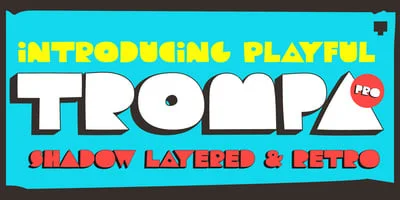
TOMO Trompa Pro Font
TOMO Trompa Pro Font is perfect for professional music conservatories, classical orchestra branding, brass instrument retailers, symphony hall signage, music education institutions, professional musician portfolios, and prestigious musical performance venues. This distinguished typeface embodies musical excellence and professional artistry, bringing symphonic sophistication and classical music heritage to any design project celebrating musical mastery and orchestral performance.
What makes TOMO Trompa Pro Font exciting is its harmonious combination of classical music tradition and contemporary professional design that perfectly captures the precision and artistry of orchestral performance. The font features structured letterforms with musical proportions and brass instrument-inspired details that evoke both the technical mastery of professional musicians and the elegant sophistication of concert halls. Its authoritative character appeals to serious music audiences while maintaining excellent readability for both sheet music applications and classical music marketing materials.
The TOMO Trompa Pro Font family includes comprehensive weight variations with matching italic styles and musical ornamental elements. The character set features musical ligatures, brass symbols, orchestral alternates, and classical decorative accents that enhance the font's professional appeal. Advanced OpenType features include musical notation support, professional typography refinements, and multilingual capabilities for international music institutions and classical performance applications.
Whether you're designing classical music brands, creating orchestral performance materials, or developing professional music education content, TOMO Trompa Pro Font provides exceptional musical sophistication and versatility. This masterful typeface transforms ordinary text into symphonic visual experiences that honor musical tradition while establishing prestigious recognition in competitive classical music and professional performance marketplaces.